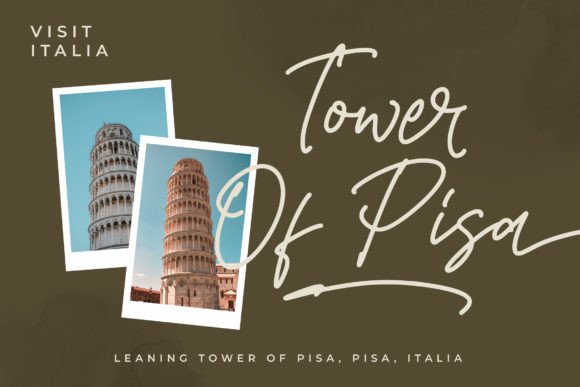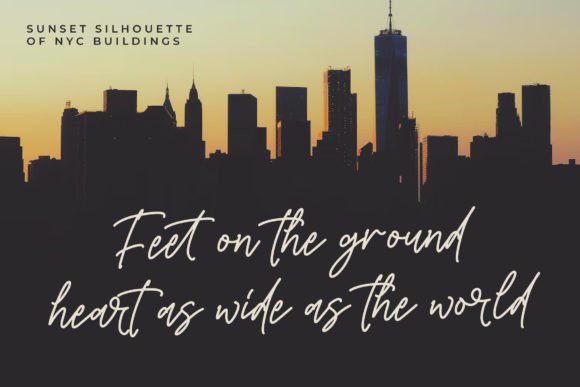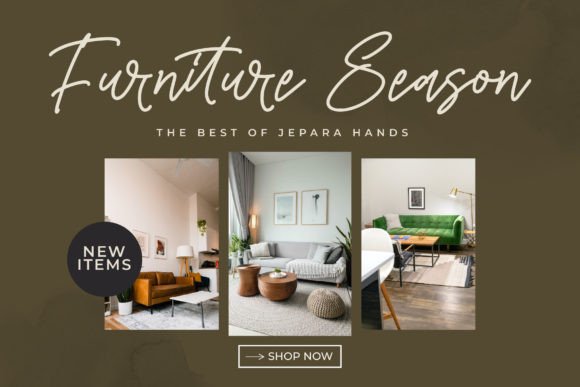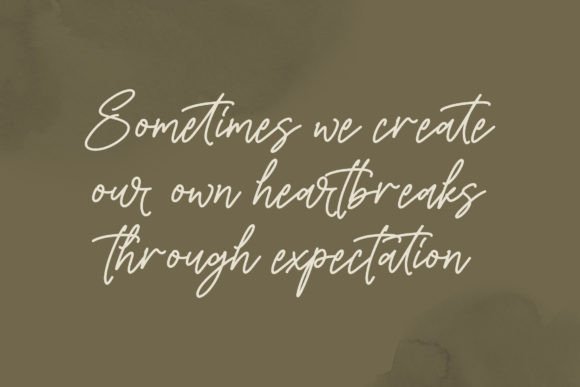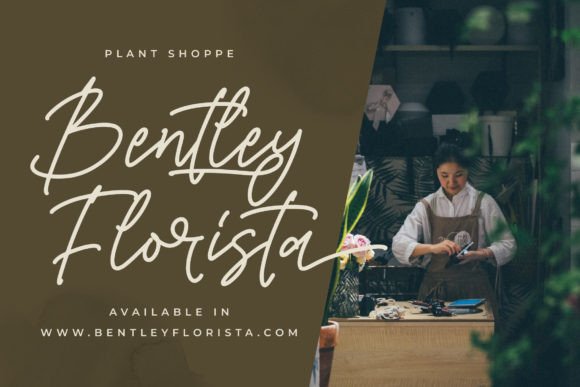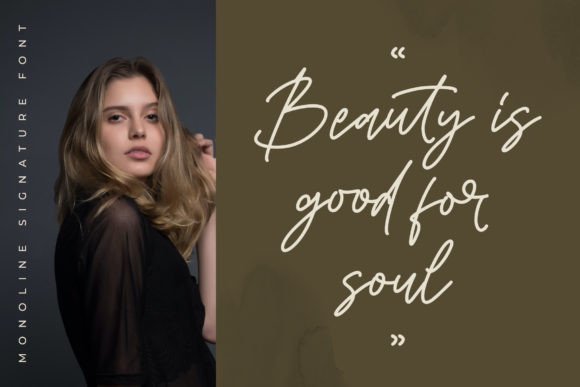
Introducing Barsdeya Font: Elevate Your Designs with Elegance and Flair
In the world of typography, a font can make or break a design. It’s the foundation upon which creativity is built, and the right choice can elevate a project from ordinary to extraordinary. For designers and crafters seeking a typeface that embodies delicacy, elegance, and a touch of sophistication, Barsdeya Font is an exceptional choice. This beautiful, handwritten font is designed to bring a sense of refinement and poise to any project, making it a versatile addition to your typographic arsenal.
The Essence of Barsdeya Font
Barsdeya is a delicate, elegant, and flowing handwritten font that captivates with its beautiful and well-balanced characters. Each letterform is crafted with precision and care, ensuring that the font exudes a sense of harmony and grace. This attention to detail makes Barsdeya a perfect match for a wide pool of designs, from the minimalist to the more elaborate and ornate.
The true beauty of Barsdeya Font lies in its versatility. Whether you’re working on a branding project, a wedding invitation, a packaging design, or a digital platform, this font adapts seamlessly. Its elegant flow and delicate features make it suitable for:
- Branding: Create a lasting impression with a logo or wordmark that speaks of sophistication and class.
- Stationery: Elevate your stationery designs, such as business cards, letterheads, and invoices, with a touch of elegance.
- Packaging: Make your product packaging stand out with a font that communicates luxury and refinement.
- Digital Platforms: Enhance your website, blog, or social media graphics with a typeface that resonates with a wide audience.
Bringing Creativity to Life
Barsdeya Font is more than just a typeface; it’s a creative tool designed to bring your most imaginative ideas to life. Its fluid strokes and refined aesthetic inspire creativity, encouraging designers and crafters to push the boundaries of their projects. When you add Barsdeya to your design toolkit, you’ll notice how it:
- Transforms simple text into a statement piece.
- Adds a professional touch to any project.
- Complements a variety of design styles, from vintage to modern.
Why Choose Barsdeya Font?
With so many fonts available, why choose Barsdeya? Here are a few compelling reasons:
- Unique Character: Barsdeya offers a distinctive look that sets it apart from more common typefaces.
- Ease of Use: Its well-designed characters ensure readability and ease of use across various applications.
- Support for Multiple Languages: Cater to a global audience with a font that supports multiple languages.
Barsdeya Font is a beautiful addition to any designer’s or crafter’s toolkit. Its delicate, elegant, and flowing handwritten style makes it a versatile choice for a wide range of projects. By incorporating Barsdeya into your creative process, you’ll not only elevate your designs but also discover new possibilities for expression and innovation. So why wait? Unlock the potential of Barsdeya Font today and watch your most creative ideas come alive!